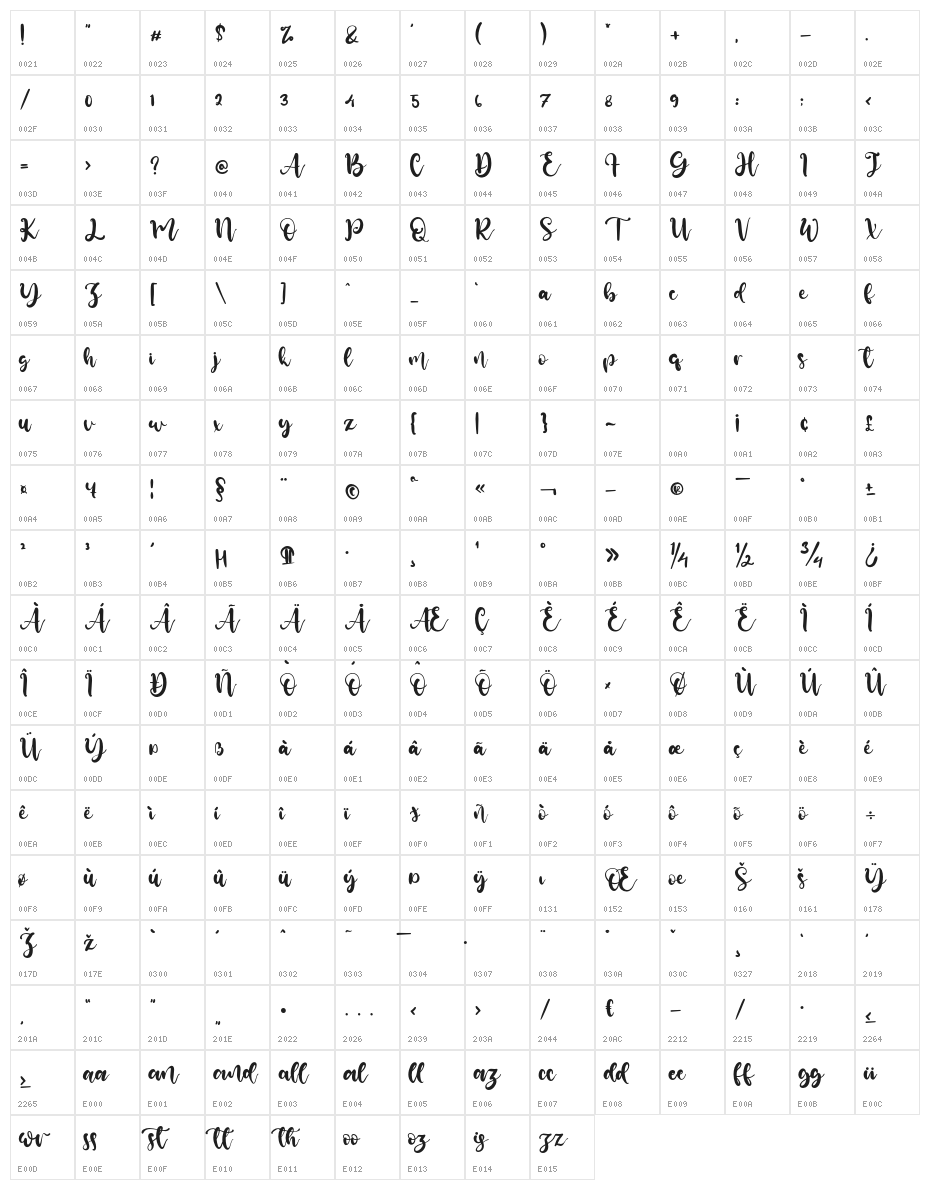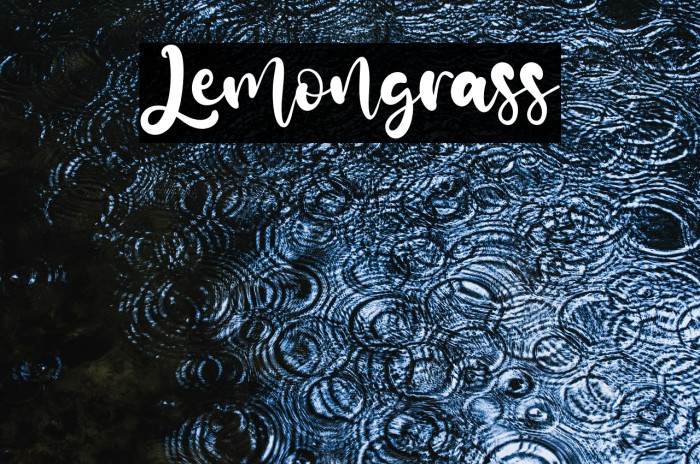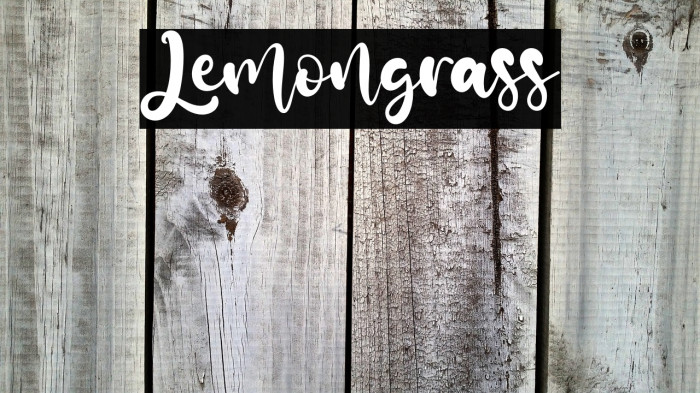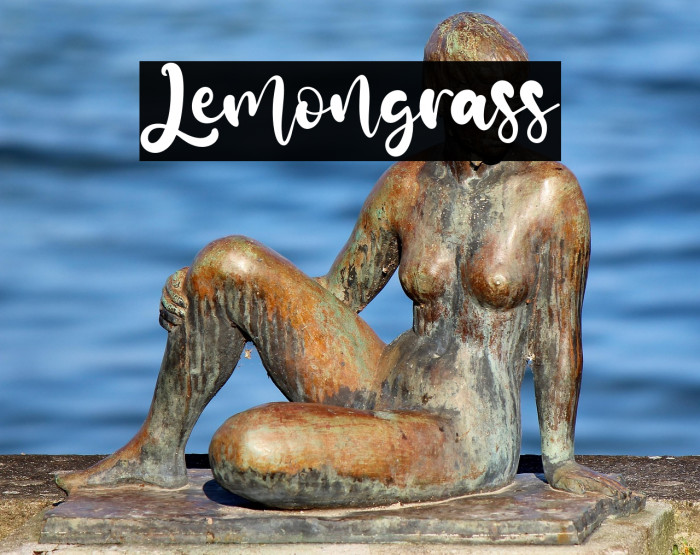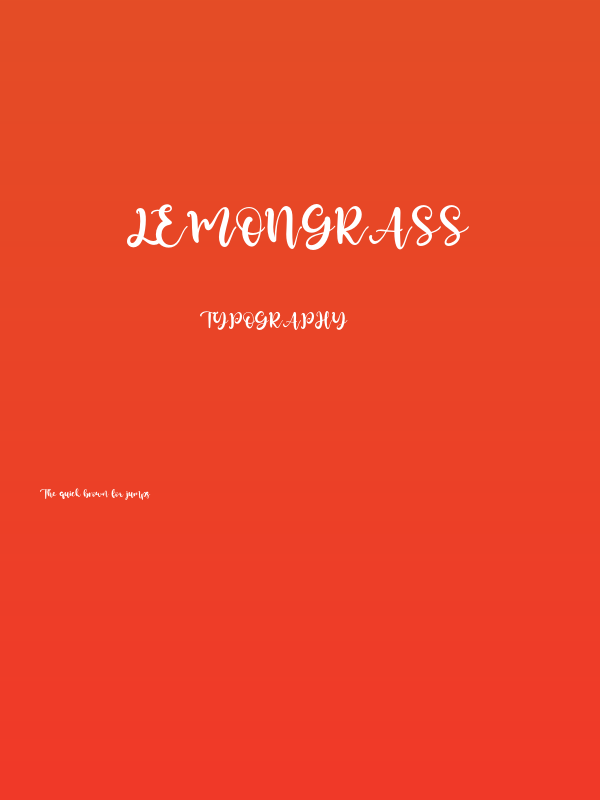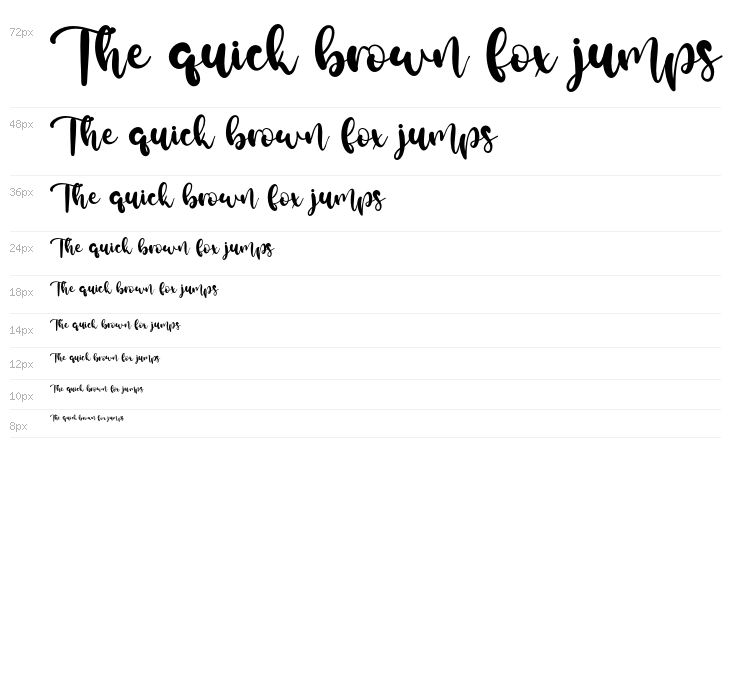
Lemongrass Font
Lemongrass Description
This font features a lively and expressive script style, characterized by its fluid, cursive strokes and playful loops. The uppercase letters are bold and dynamic, with a slight slant that adds a sense of movement and elegance. The lowercase letters maintain a consistent flow, with some characters extending below the baseline, enhancing its handwritten appeal. The numerals are clear and legible, maintaining the same playful style as the letters. Special characters are well-integrated, matching the overall aesthetic. This font is perfect for projects that require a personal touch, such as invitations, greeting cards, or branding materials.
| Proposed Projects | Ideal for invitations, greeting cards, branding, and personal projects. |